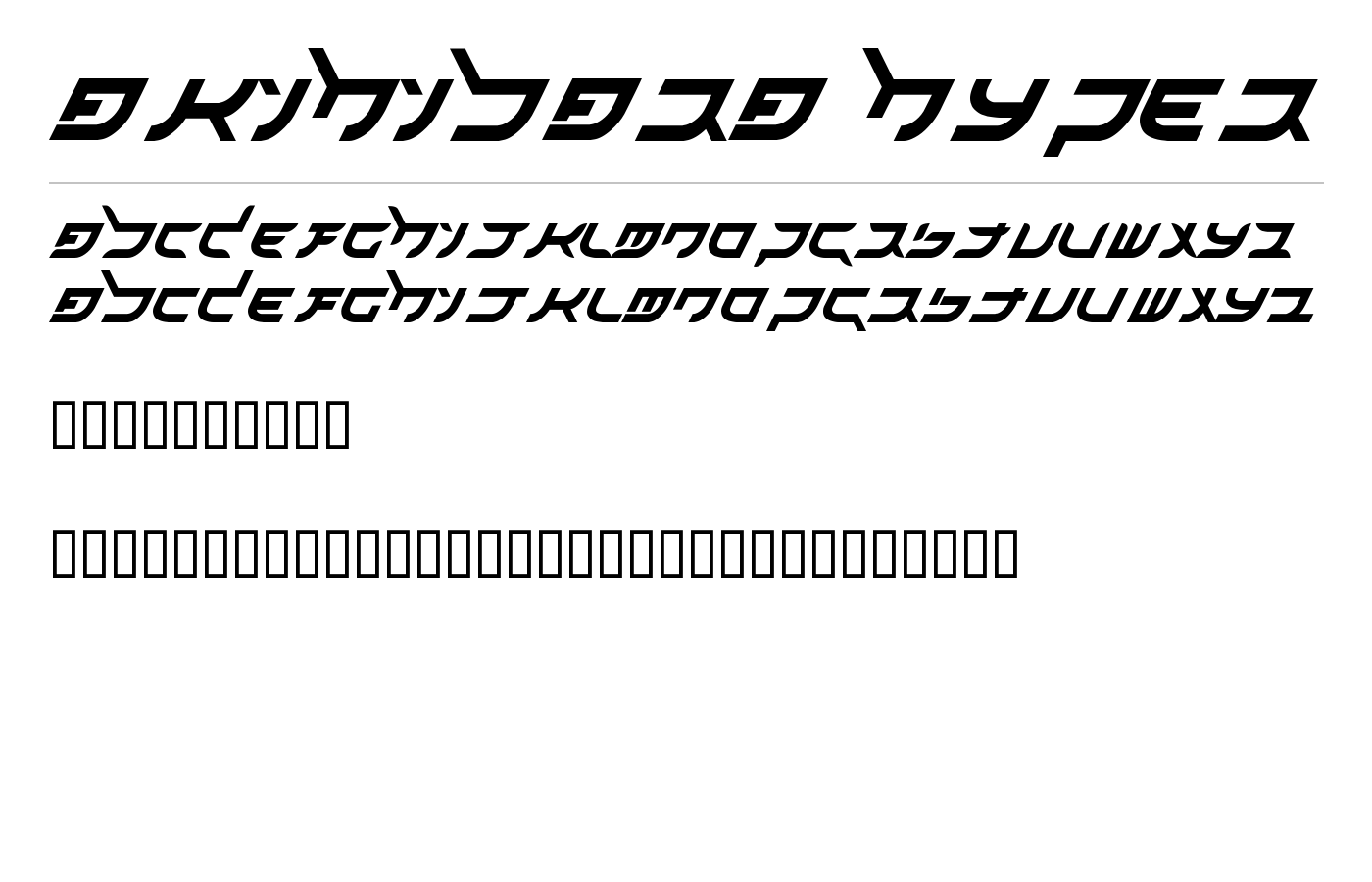
Akihibara Hyper is a bold, futuristic sans serif font with a condensed width and sharp angular strokes that give it a dynamic, high-tech feel. Its unique letterforms feature geometric shapes and slanted details, making it ideal for modern branding, technology-related designs, and eye-catching headlines. This font works especially well in contexts that seek to convey energy, innovation, and a sleek, cutting-edge style.
akihibara hyper Font